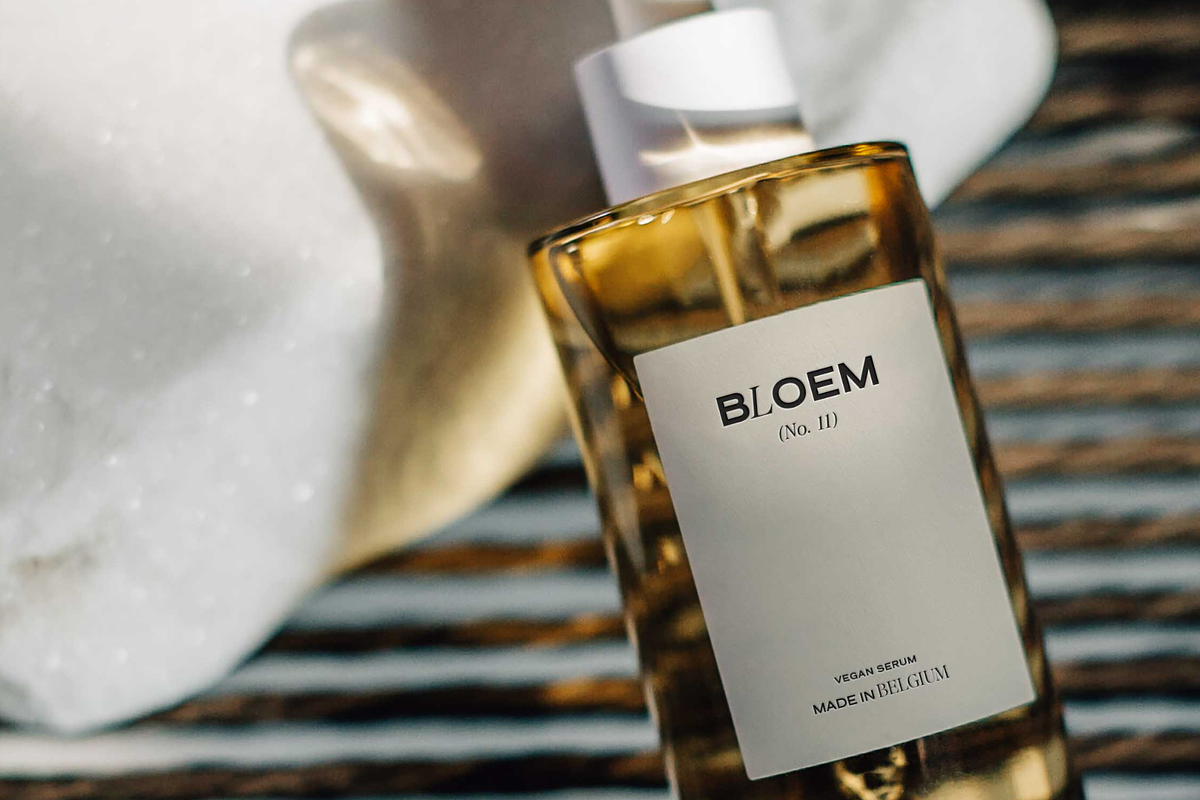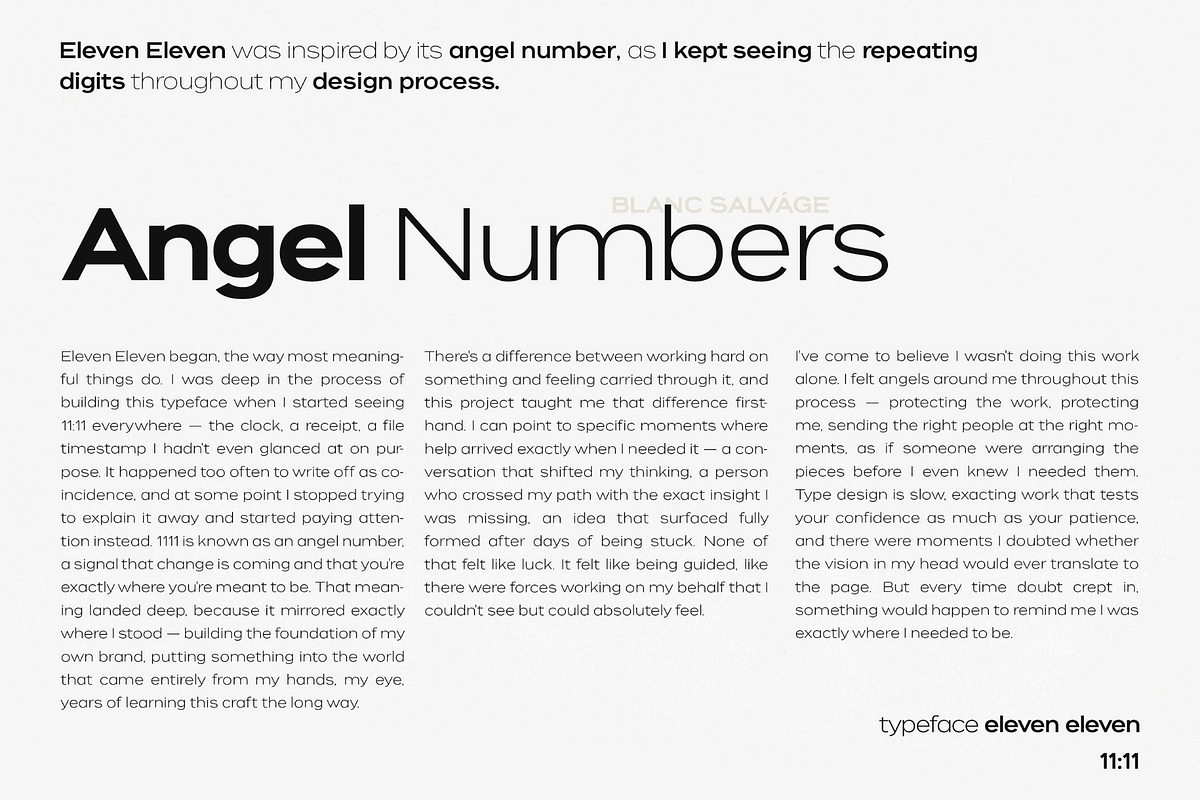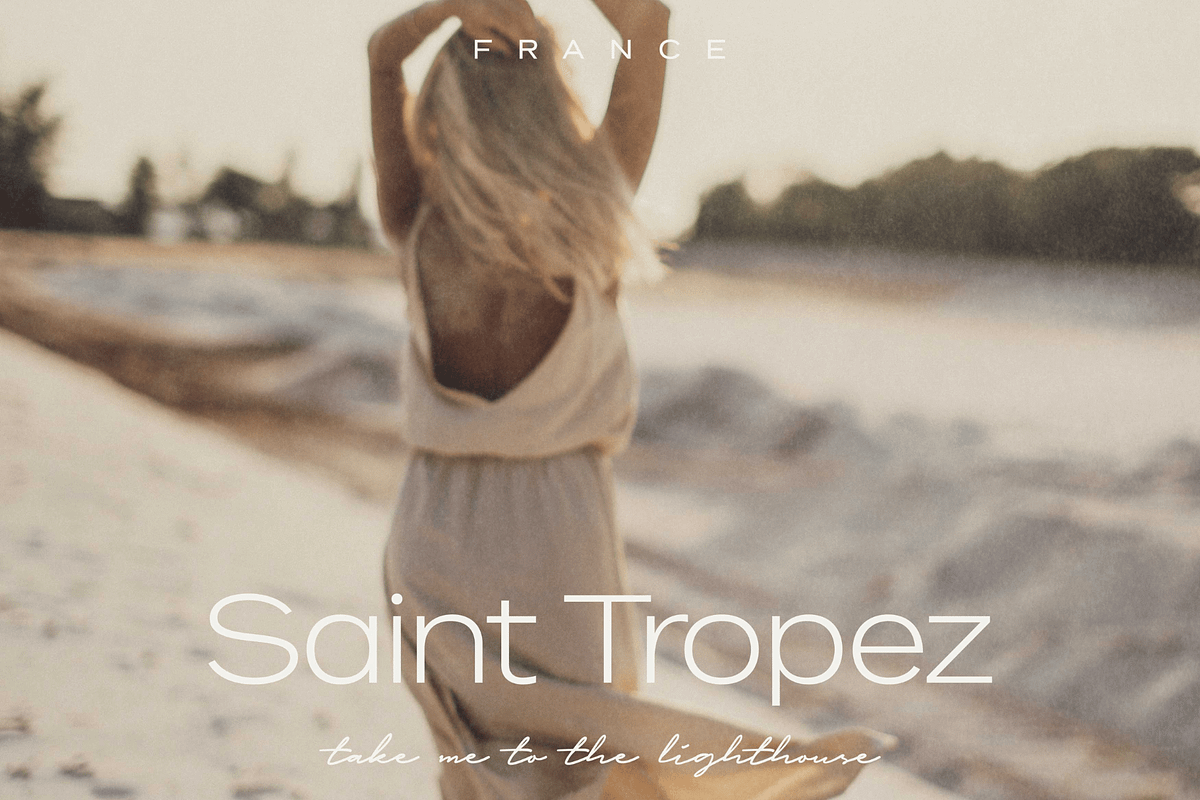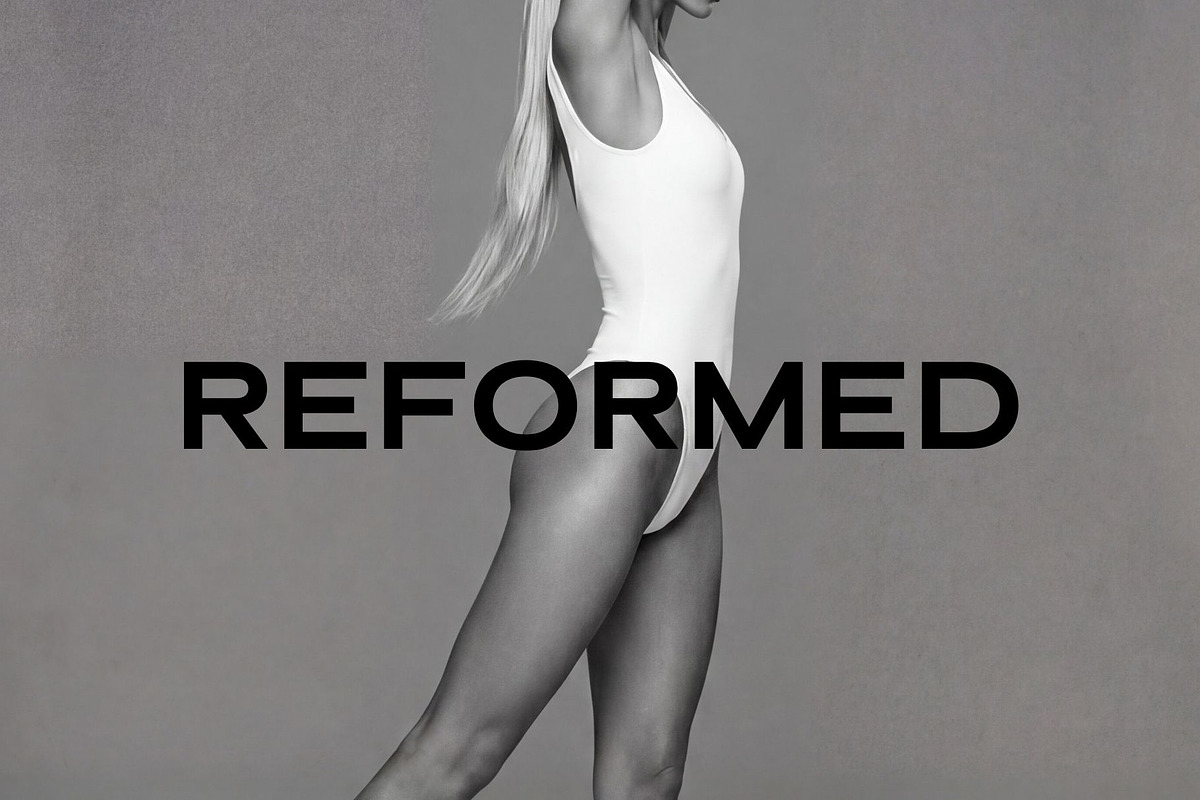
Eleven Eleven Modern Geometric Sans
Say hello to Eleven Eleven, a modern geometric sans serif inspired by the Universe that guides me to create. This font comes in 3 weights; light, medium, and bold to truly elevate your design concepts by combining all styles for a cohesive look.
Whether you use Eleven Eleven as the main font or tagline in your branding and marketing materials, you'll fall in love with the ultra modern vibes this typeface brings to your designs.
Light (uppercase + lowercase)
Medium (uppercase + lowercase)
Bold (uppercase + lowercase)
Numbers and punctuation